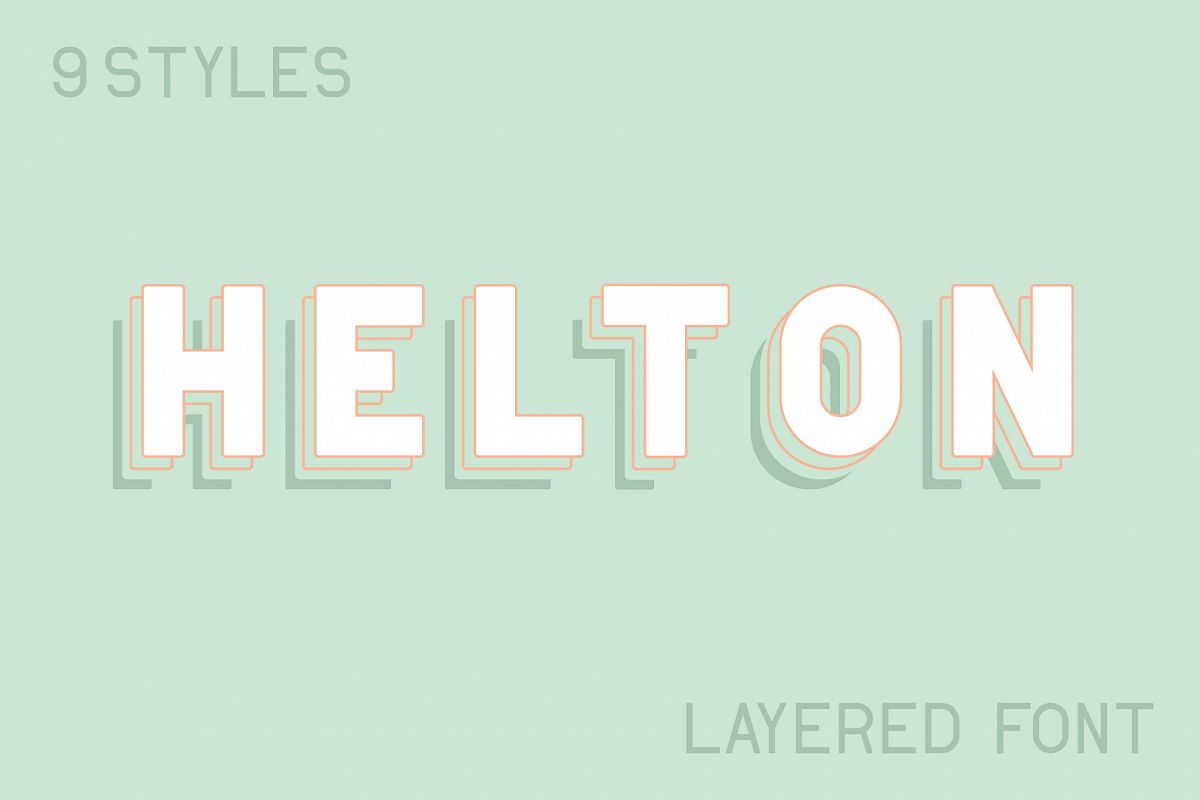
Helton Typeface
Helton is a layered typeface for creating a fun style of depth. Great for experimenting with typestyles. Comes with 9 type styles.
• Regular
• Outline
• Outline Bold
• Inline
• Light
• Italics
• Light Italics
• Layered
• Shadow